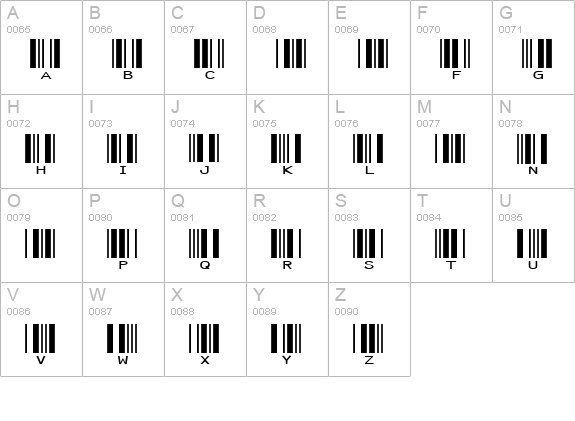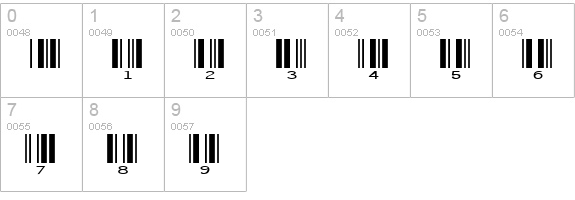
SKANDEMO R Bar Code C39 Wide is a distinctive, extended-width variant in the SKANDEMO typeface family \xE2\x80\x94 well suited to design and typography projects.
The SKANDEMO R Bar Code C39 Wide font is a versatile and eye-catching typeface that is perfect for creating professional barcode designs. With its wide character set and bold, clean lines, this font allows you to create barcodes that are easily scannable and highly readable. What sets the SKANDEMO R Bar Code C39 Wide font apart is that it is freely available to download at FontsMarket.com. This means that you can access and use this font for your barcode projects without any cost or restrictions. Whether you are a graphic designer, a business owner, or simply someone who needs to create barcodes for personal use, this font offers a convenient and affordable solution. The SKANDEMO R Bar Code C39 Wide font is designed to be compatible with a range of barcode scanners and software, ensuring seamless integration into your existing systems. Its clean and precise design ensures that barcodes created with this font can be easily scanned and read, reducing the risk of errors and improving efficiency. Whether you need to create barcodes for product labeling, inventory management, or any other application, the SKANDEMO R Bar Code C39 Wide font is a reliable choice. Its wide character set allows you to include alphanumeric characters, as well as special symbols and punctuation marks, giving you the flexibility to create barcodes that meet your specific requirements. With its freely available download at FontsMarket.com, the SKANDEMO R Bar Code C39 Wide font offers convenience, versatility, and affordability. So why wait? Start creating professional and scannable barcodes today with this exceptional font.